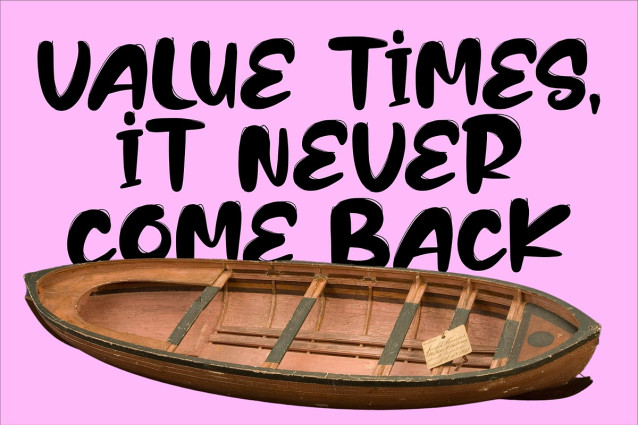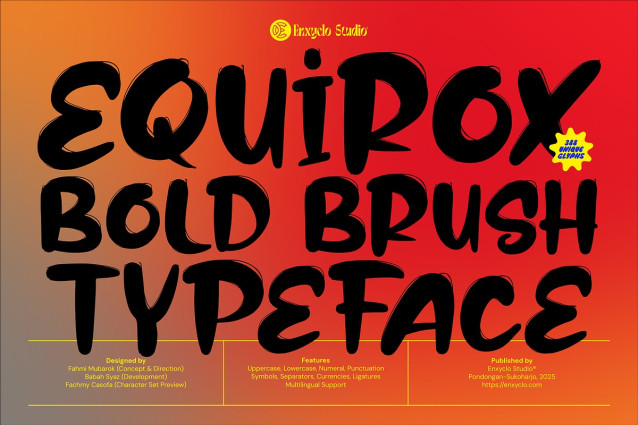
Equirox Brush Font
Equirox Brush Font is a bold and dynamic font that delivers a unique and expressive feel for all your design needs. Crafted with a rich brush style, this font is perfect for designers looking to create energetic and personal works, from branding and posters to eye-catching social media content. Whether you’re looking to create striking headlines, dynamic logos, or captivating social media graphics, this font offers a versatile and lively style that stands out with confidence. Its beautiful balance of boldness and fluidity makes it a perfect choice for designers who want their work to be noticed and remembered.